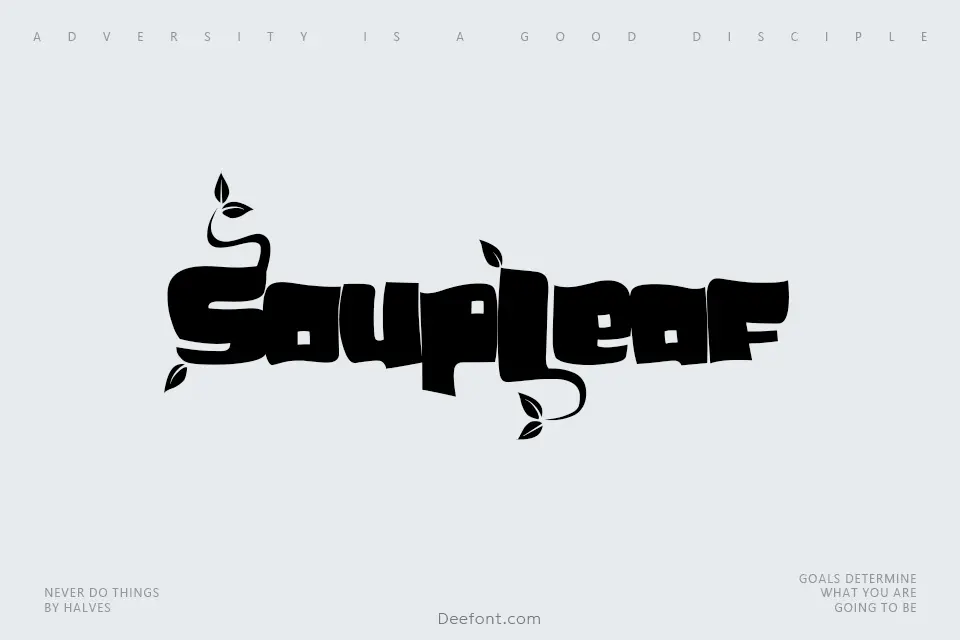
SoupLeaf Font
SoupLeaf is a distinctive script and graffiti typeface designed to bring creative flair to your projects. This playful font features organic, flowing letterforms with unique leaf-inspired decorative elements that add natural charm and visual interest to any design. Perfect for posters, branding, creative invitations, and artistic projects, SoupLeaf combines whimsical curves with bold character presence. Whether you’re designing eye-catching headlines or adding personality to custom graphics, this expressive font delivers outstanding visual impact and memorable typography for creative professionals and design enthusiasts alike.